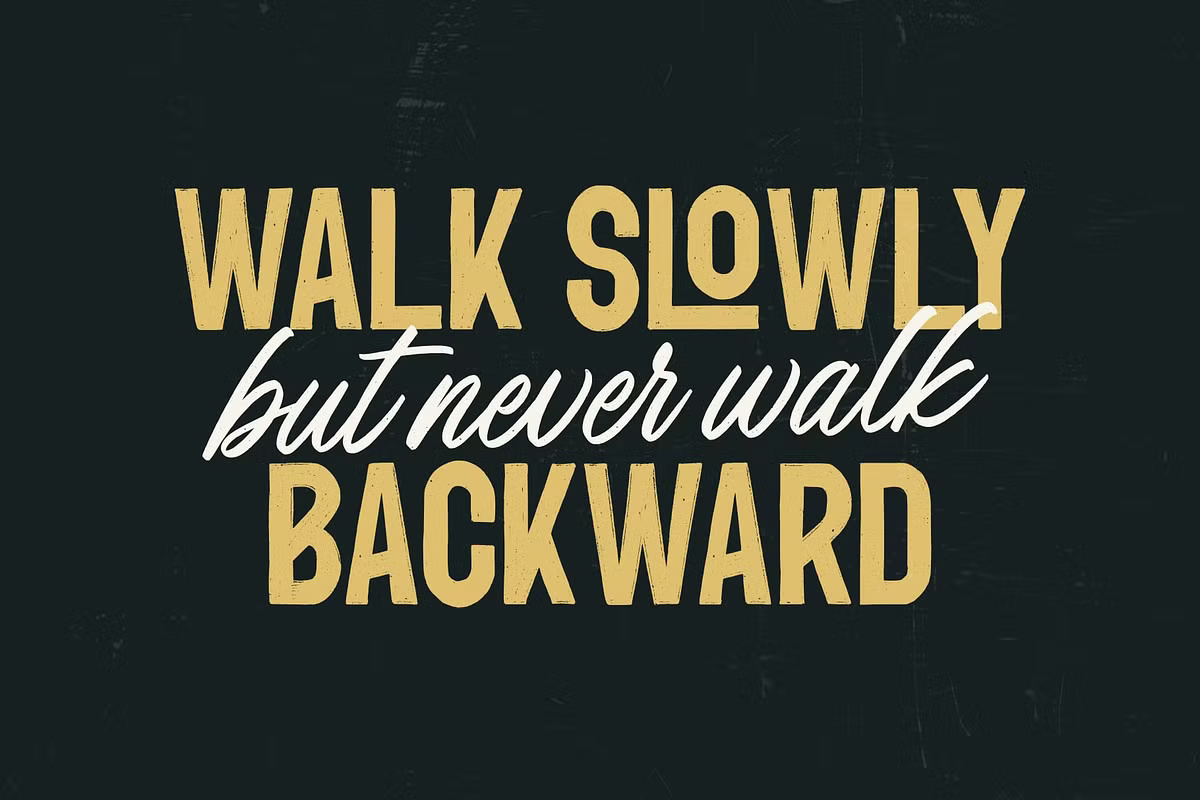
Barthon Riverside comes as a pair. The sans is tall and condensed with a slightly rough, printed edge. The script is fast and slanted, with long strokes under some words, as if written with a marker.
Damarletter shows the two together on Walk Slowly but Never Walk Backward, in gold on dark green. The sans carries the first and last lines and the script sits in the middle. The script includes ligatures such as tt, rr and rs, and the specimen mentions stylistic alternates and multilingual support. Ardian Nuvianto is credited as the designer.
Best uses for Barthon Riverside
- Quote posters
- Badge and apparel designs
- Coffee and craft beer labels
- Instagram posts
- Outdoor brand logos
The duo covers headings and accents, so add a plain body font. Roboto works well. Barlow keeps the vintage tone. For a serif, try Bitter.
Barthon Riverside Font Duo